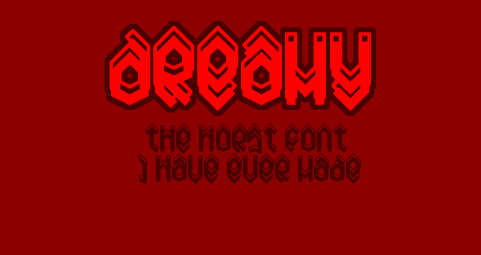
Dreamy
I tried my hand at making a metal font for all of the headbangers out there. What can I say. . .I tried, I failed. This is the most terrible font you could download. I figured with all of the work I put into it, I might as well post it. I have no clue why I named it Dreamy, either. If you can think of a better name for it, please tell me. I will change it.